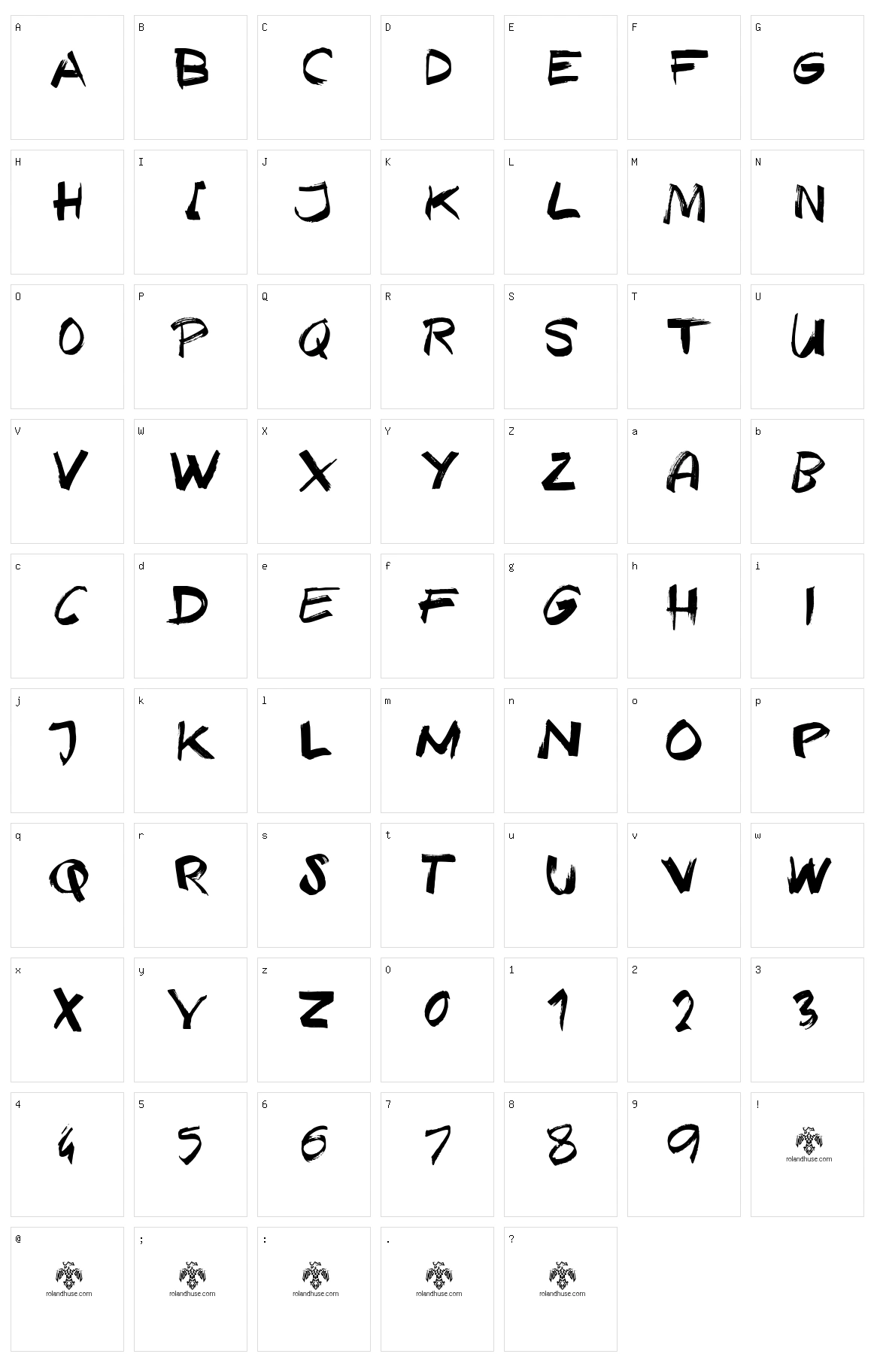
Texas Grunge
Designed by: Roland Huse Design
Category: Trash
ÿþTEXAS GRUNGE DEMO is a demo version of my hand drawn extra bold Sharpie font.
Texas Grunge Character Set